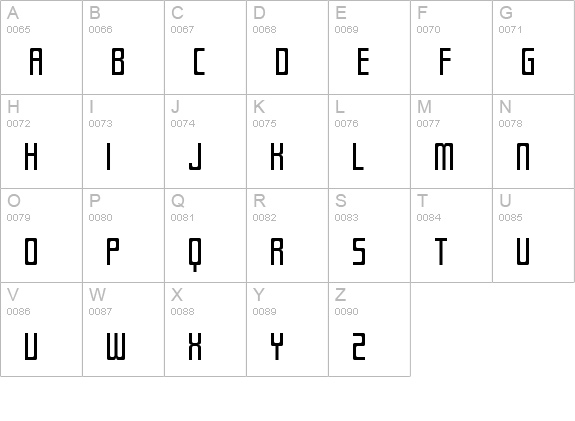
SF Laundromatic Condensed is a distinctive, condensed-width variant in the SF typeface family \xE2\x80\x94 well suited to design and typography projects.
The SF Laundromatic Condensed font is a versatile and modern typeface that will add a touch of sophistication to any design project. With its clean lines and condensed letterforms, this font is perfect for headlines, titles, and branding materials. What sets the SF Laundromatic Condensed font apart is not only its aesthetic appeal but also the fact that it is available for free. Yes, you heard it right! This font can be freely downloaded from FontsMarket.com, allowing designers and creatives to access a high-quality typeface without breaking the bank. Whether you're working on a professional project or a personal undertaking, the SF Laundromatic Condensed font will elevate your design to new heights. Its sleek and contemporary look will make your text stand out and grab the attention of your audience. The SF Laundromatic Condensed font is designed with legibility in mind, ensuring that your message is easily absorbed and understood by readers. Its condensed nature allows for more text to fit within limited space, making it an ideal choice for posters, banners, and other large-scale designs. With its wide range of characters, including upper and lowercase letters, numerals, and punctuation marks, the SF Laundromatic Condensed font offers endless possibilities for creative expression. Whether you're designing a logo, a website, or a social media post, this font will provide the perfect foundation for your typography. So why wait? Take advantage of this incredible opportunity to enhance your design projects with the SF Laundromatic Condensed font. Download it for free at FontsMarket.com and start creating stunning visuals that leave a lasting impression.